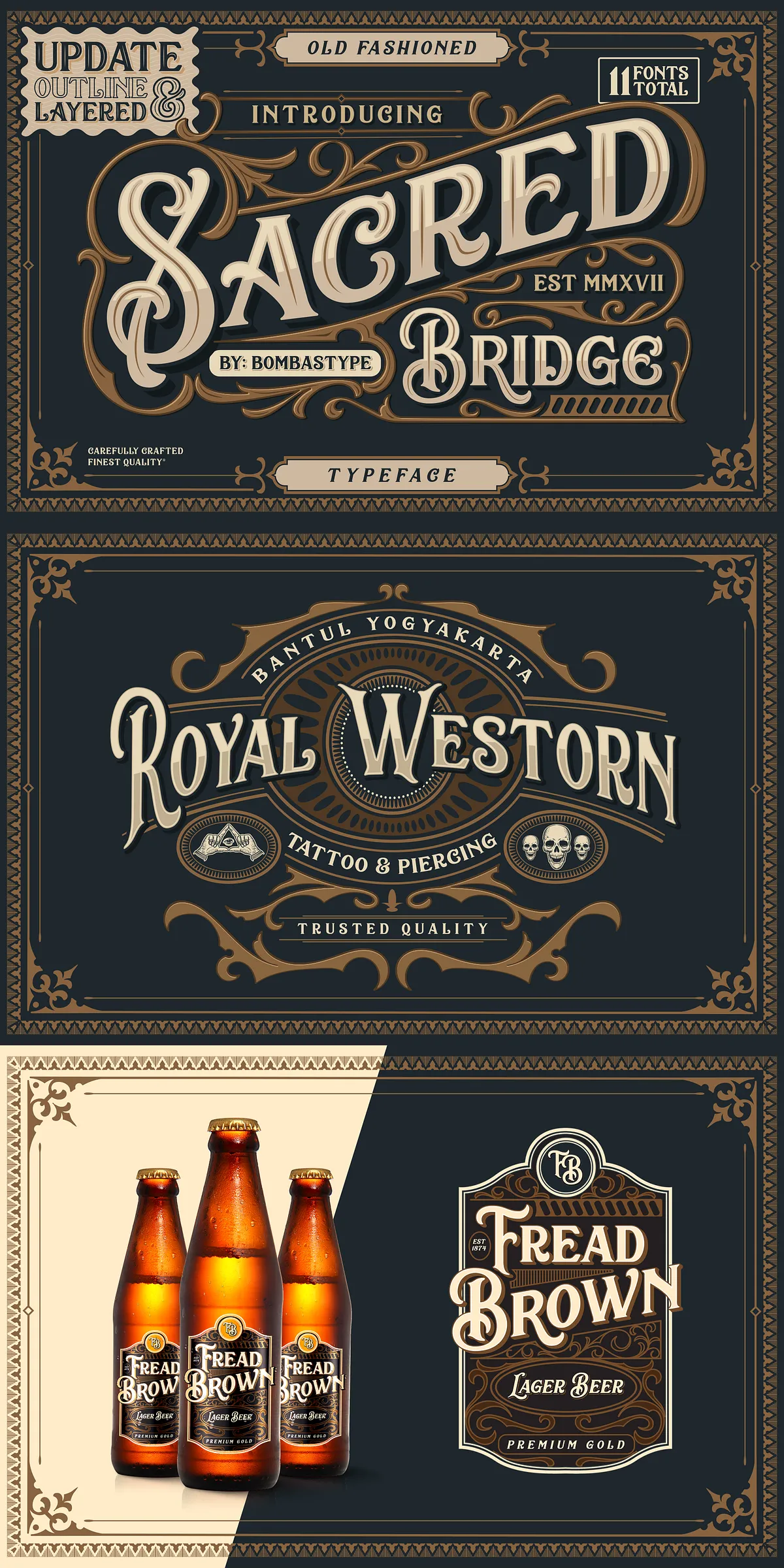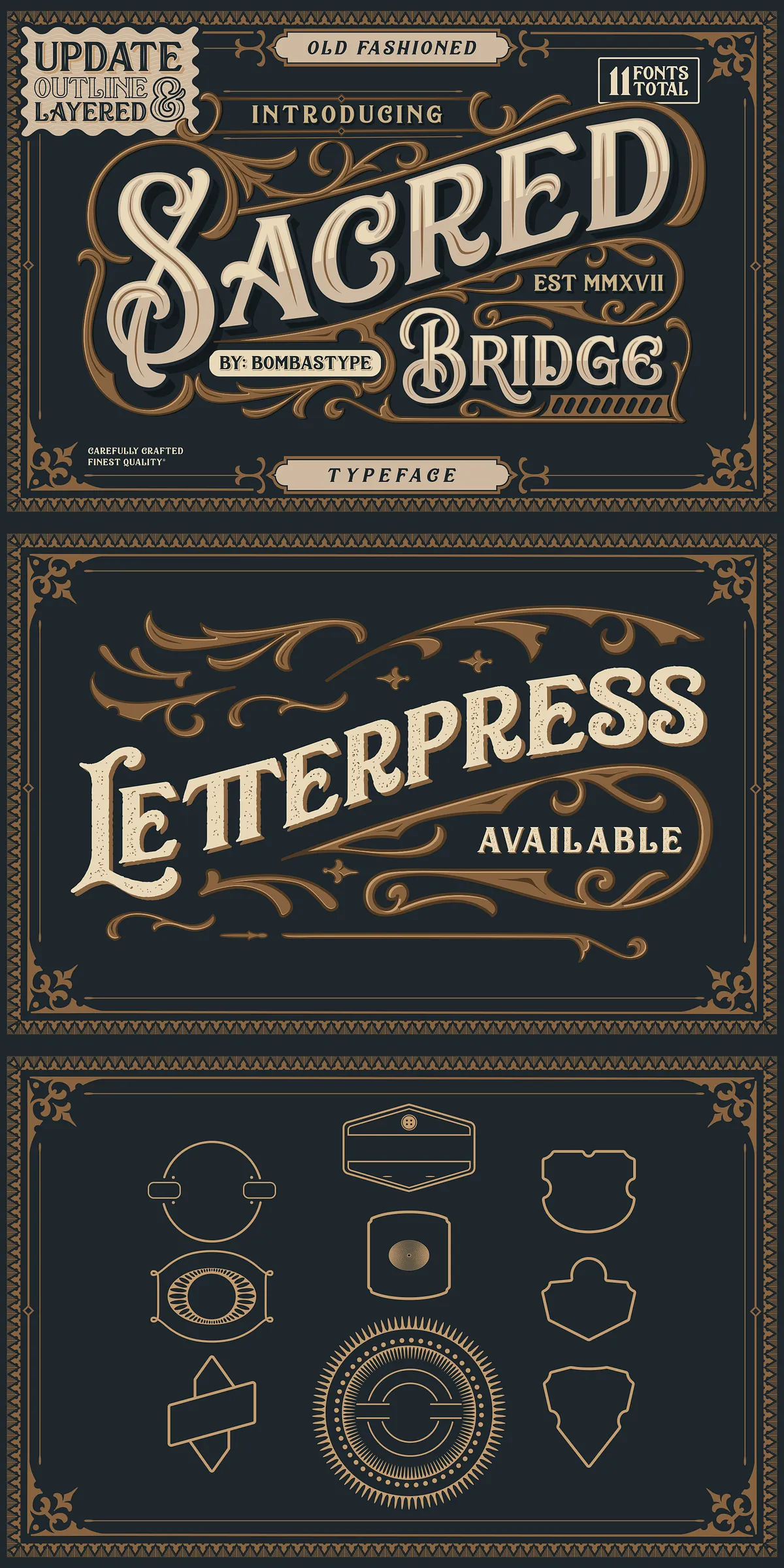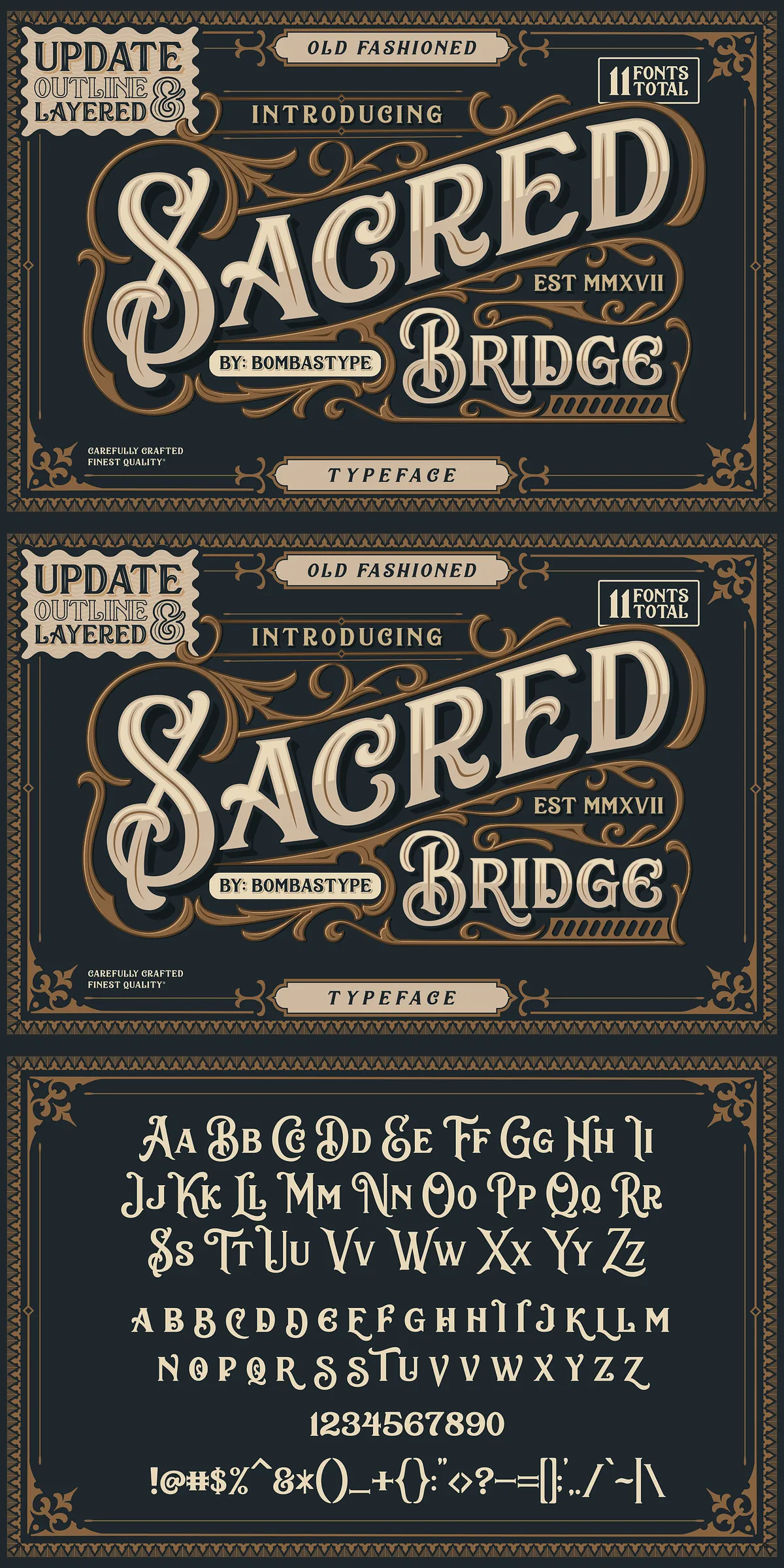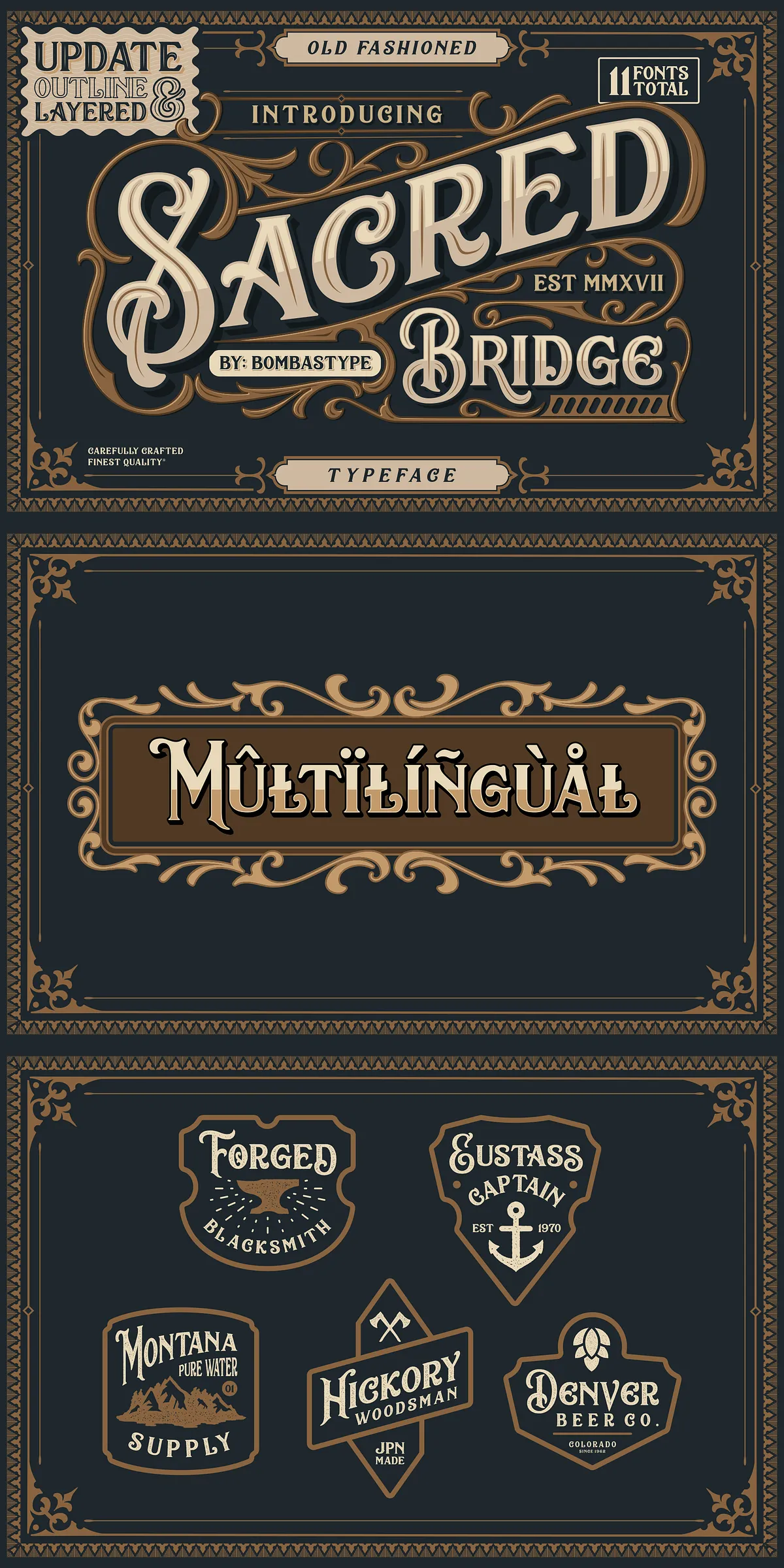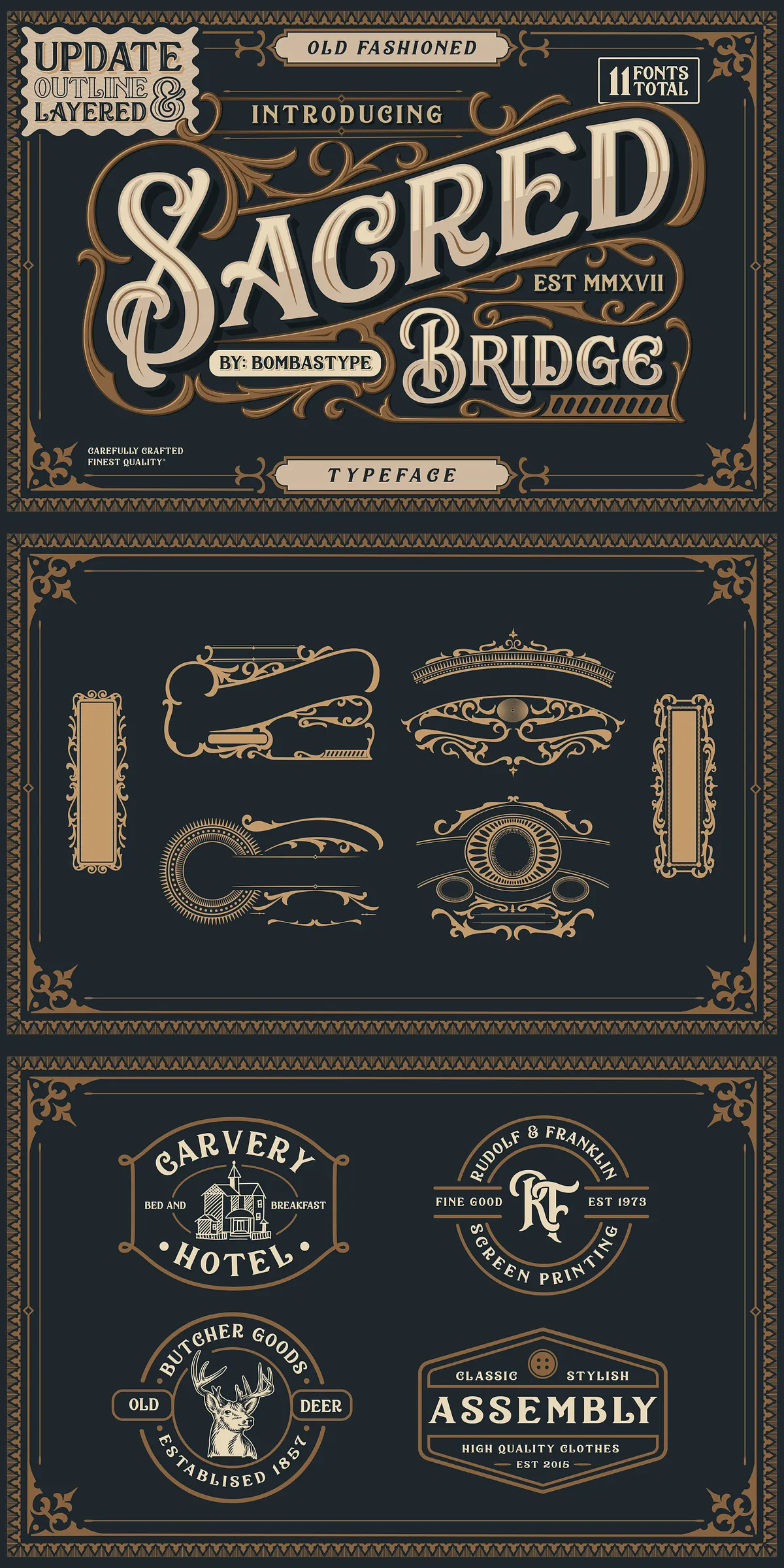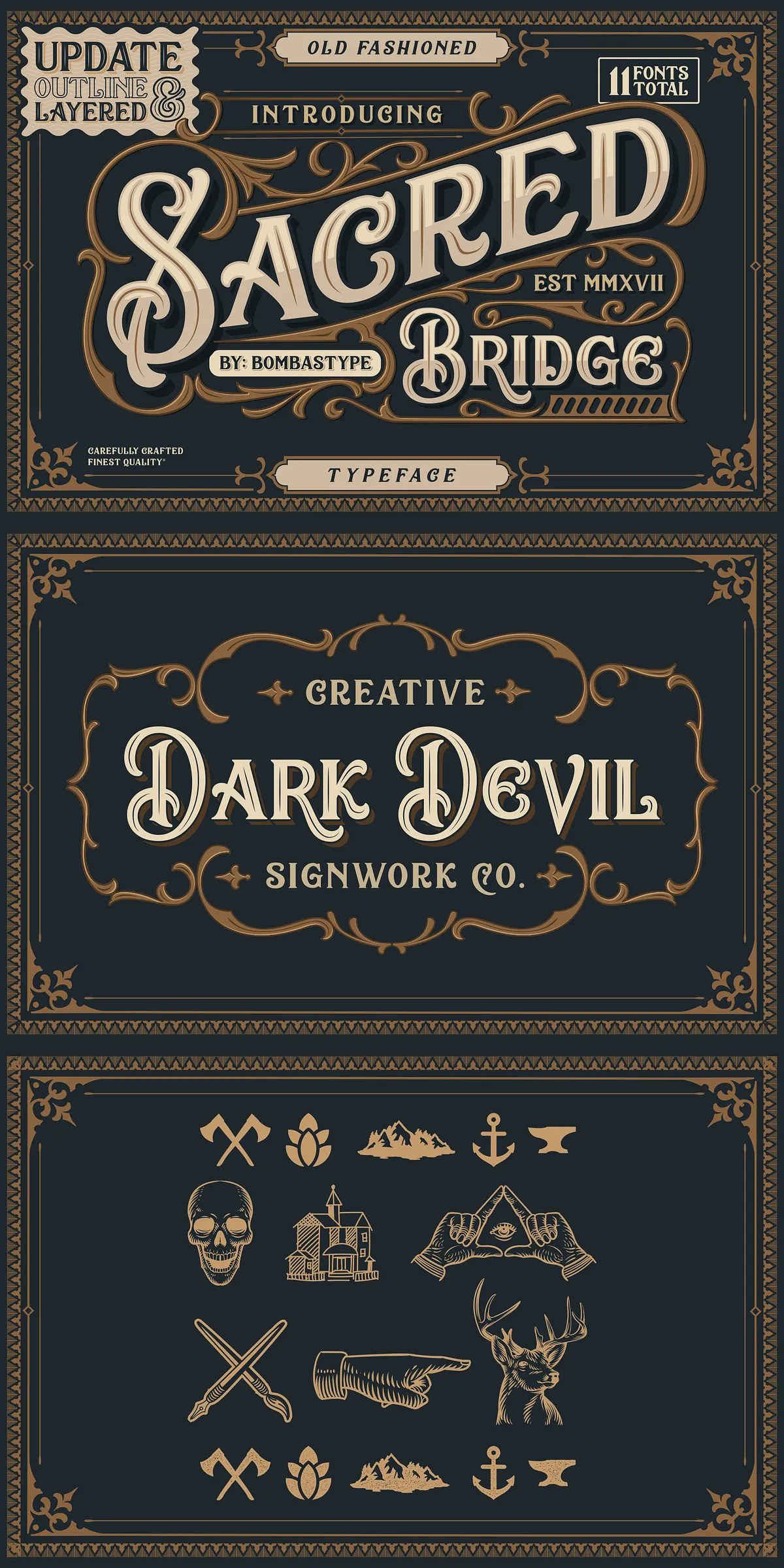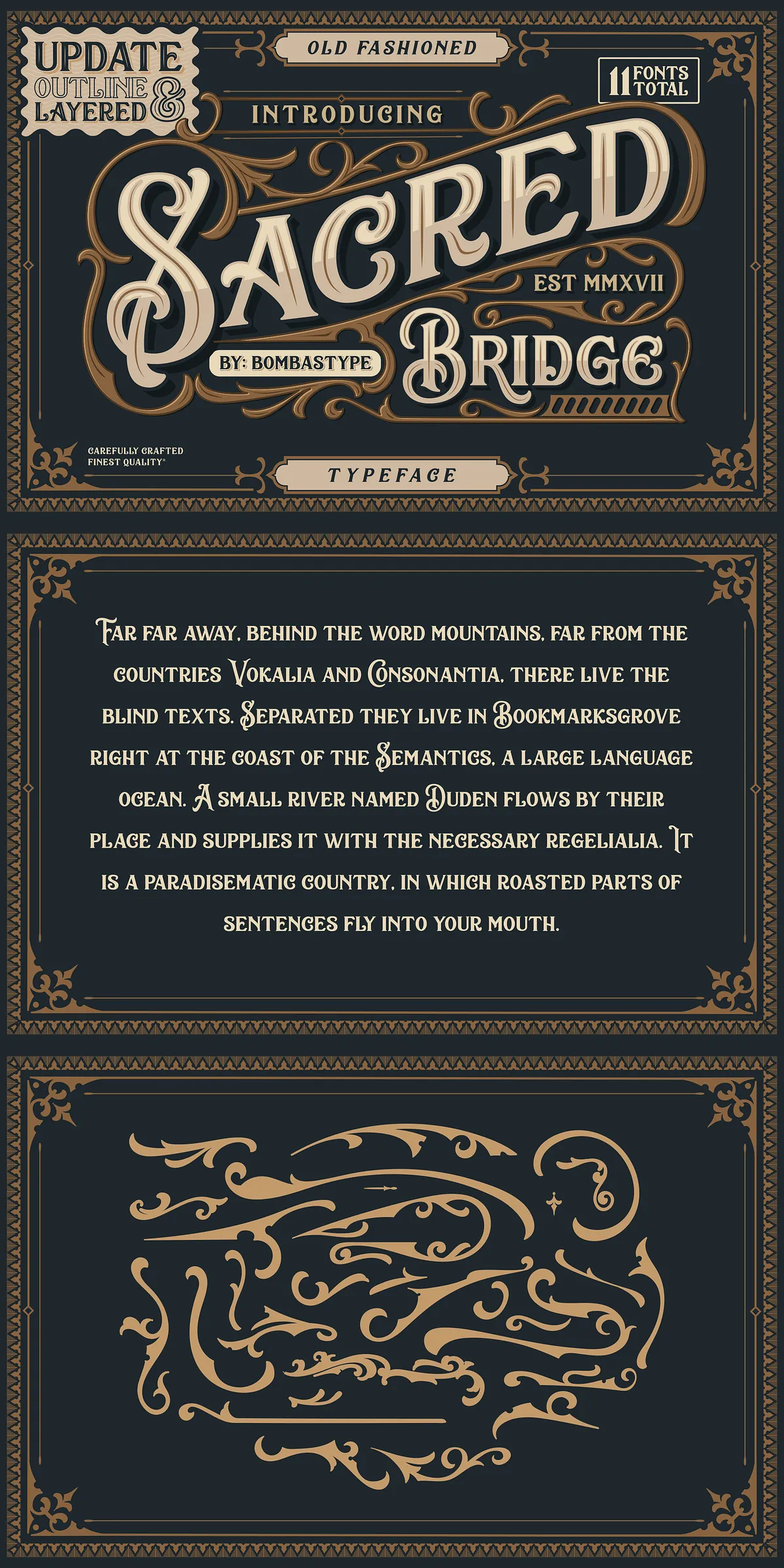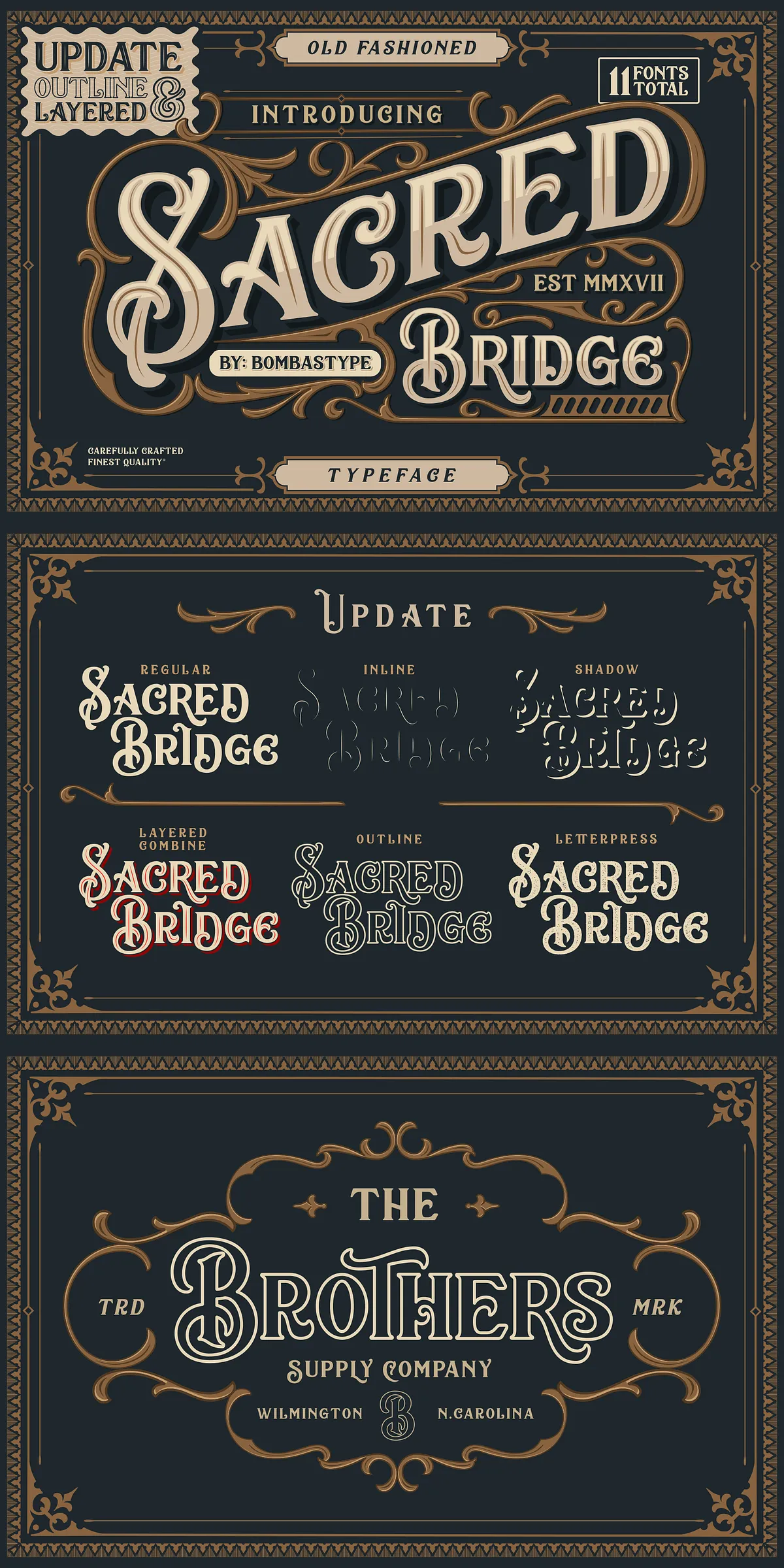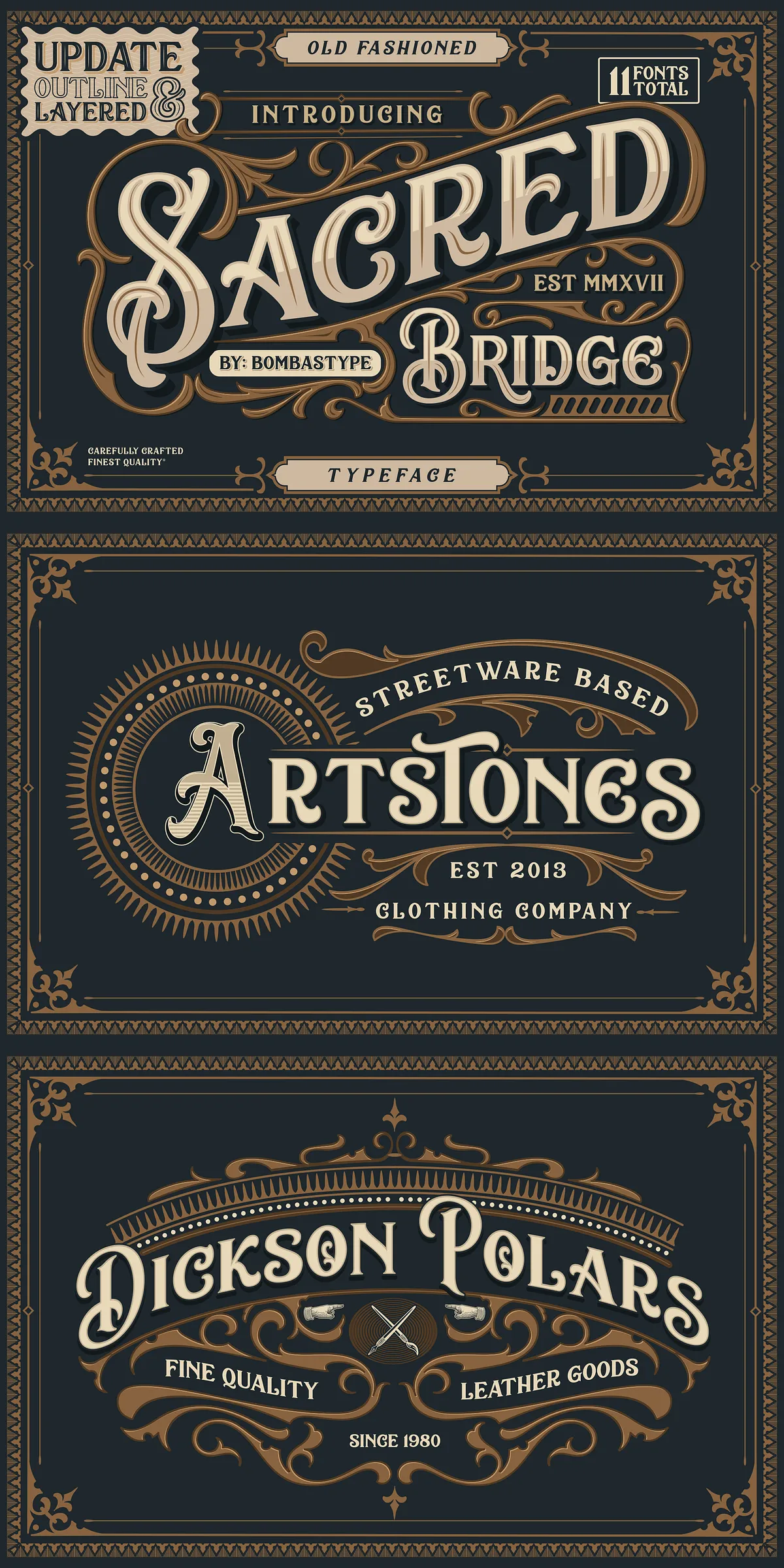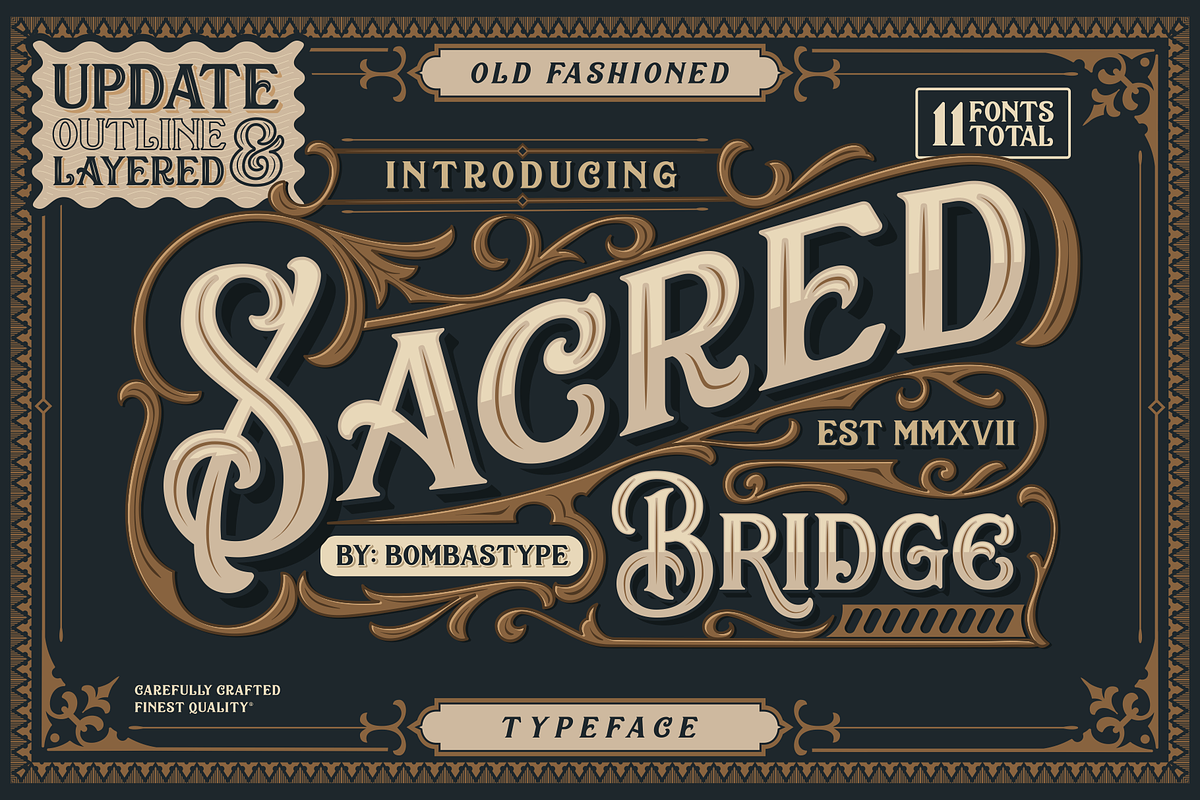
Sacred Bridge is an exceptional old fashioned typeface that combines vintage charm with a clean letterpress style. Designed to meet the demands of modern branding and display needs, it offers a comprehensive family including regular and italic versions. This font family is complemented by a variety of extra ornaments and symbols that enrich your design possibilities. Whether you’re working on branding, emblems, advertising campaigns, apparel designs, or any creative project requiring a strong display font, Sacred Bridge delivers immediate impact with its versatile and refined aesthetics.
Comprehensive Typeface Family Designed for Versatile Display Use
The Sacred Bridge typeface includes multiple styles, each uniquely crafted to bring a consistent old fashioned feel while providing flexibility in typographic expression. The family features regular and italic styles, as well as old-style variants and inline and shadow options. Additionally, the outline styles add extra dimension to your typography, allowing designers to create layered and visually dynamic text effects. The inclusion of “Sacred Bridge Extras” provides valuable ornamental graphics, flat colors, and layered assets that enhance decorative possibilities, ensuring creative freedom beyond basic font use.
Why Choose Sacred Bridge for Your Design Projects
Sacred Bridge stands out with its clean letterpress style that vividly recalls traditional printing methods while bridging the gap to contemporary design needs. This font’s ability to combine clarity and nostalgia makes it highly suitable for a wide range of display applications. Its well-crafted letterforms provide excellent readability and distinctive character, enabling your branding, logo, or advertising projects to communicate authenticity and craftsmanship effectively.
Applications for Branding, Advertising, and Apparel Design
The Sacred Bridge typeface is perfectly suited for creating bold and memorable brand identities. Use it on product packaging, company logos, promotional posters, and apparel design to add a vintage flair with modern clarity. Its ornamental extras offer unique design accents that make your projects visually arresting and professional. Whether you are printing t-shirts, designing signage, or crafting emblems, Sacred Bridge elevates your visuals with style and historic resonance.
Features and Benefits of Sacred Bridge Typeface
- Old fashioned, clean letterpress style font tailored for display use
- Comprehensive family with regular, italic, old styles, inline, shadow, and outline variants
- Extra ornaments and symbols enrich your creative possibilities
- High versatility across branding, emblems, advertising, apparel, and more
In summary, Sacred Bridge is the ideal choice for designers seeking a timeless font with a clean and sophisticated letterpress feel. This typeface empowers you to craft compelling brand stories and visually engaging displays that resonate with authenticity. With its multiple styles and extras, Sacred Bridge offers an unparalleled toolkit to elevate your creative projects and ensure your designs make a lasting impression.